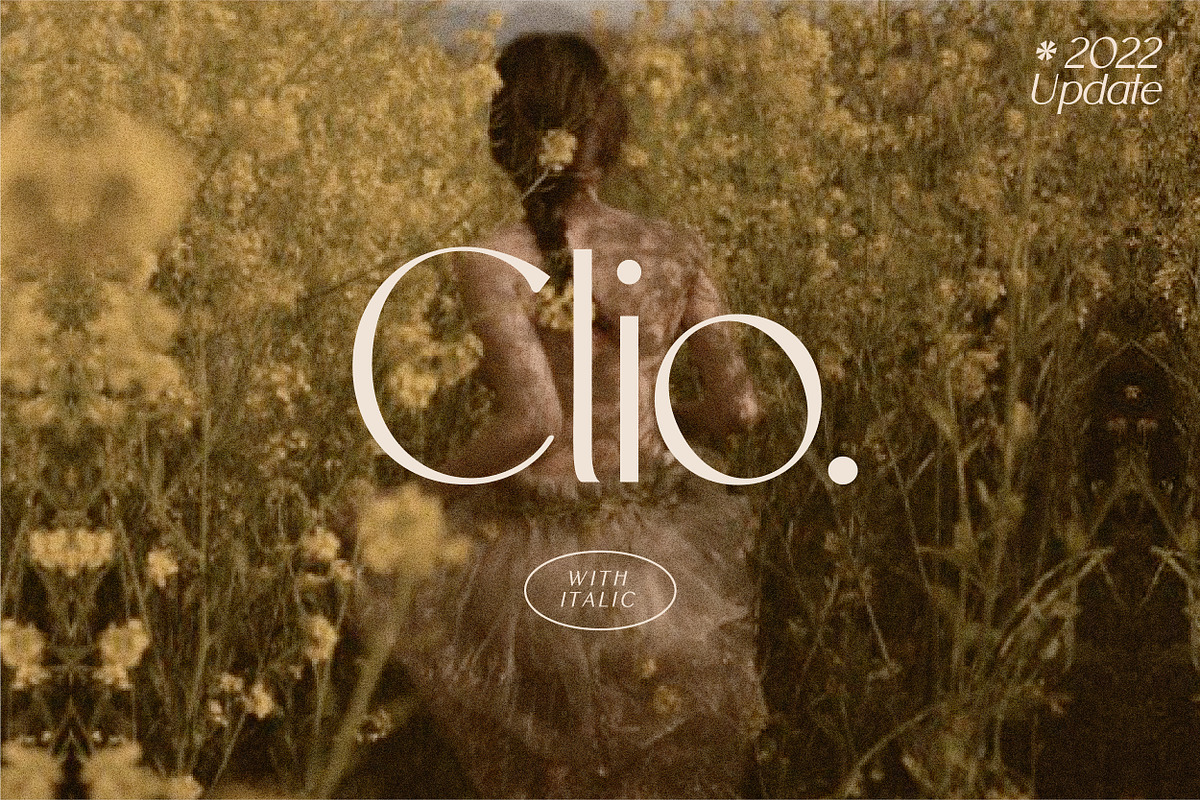
Introducing Clio – a striking display sans serif font that redefines minimalist elegance with purpose and precision. Whether you’re crafting a luxury brand identity, designing a high-end editorial spread, or developing a lifestyle-focused website, Clio delivers the visual sophistication that speaks volumes without saying a word. Meticulously refined and freshly updated, Clio is engineered for designers who demand clarity, style, and impact in every project.
Refined & Modern: The Essence of Visual Elegance
Clio isn’t just a font; it’s a design philosophy. Born from the principle that less is more, Clio’s simple yet powerful forms create a sense of calm authority. Its clean lines, balanced proportions, and carefully executed counters give it a visual elegance that stands out in any context. The updated Clio Italic adds dynamic movement to your layouts, while the remastered Clio Regular ensures even greater clarity and consistency across all weights and styles.
- Timeless Minimalism: A modern sans serif with a refined character, perfectly suitable for branding, editorial design, and high-impact visuals.
- Enhanced Legibility: Improved stroke tuning and spacing for optimal readability at both large and small scales.
- Sleek & Confident Aesthetic: The font’s structure projects professionalism, innovation, and understated confidence.
- Designed for Lifestyle & Luxury: Ideal for fashion, wellness, architecture, and premium product launches where visual clarity and elegance are essential.
Powerful Features That Work for You
Every feature in Clio is built with functionality and beauty in mind. Designed not only to look good, but to perform flawlessly in real-world creative environments.
- Standard Ligatures: Seamlessly connect letters with custom-designed ligatures for a fluid, hand-crafted look. Perfect for creating expressive headlines and elegant titles.
Tailor Your Message with the Right Clio Style
Clio offers two distinct styles to match the tone and space of your project.
- Clio Regular: The cornerstone of the family. Perfect for balanced, clean layouts where elegance and clarity are key. Use it for headlines, branding, and editorial titles.
- Clio Italic: Add movement, flair, and sophistication to your designs. The italic version flows with a subtle slant, ideal for feature articles, quotes, and elevated section headers.
Combine them for dynamic contrasts. Use Regular for impact and Italic for emphasis. The versatility between the two styles allows you to tell a more compelling visual story.